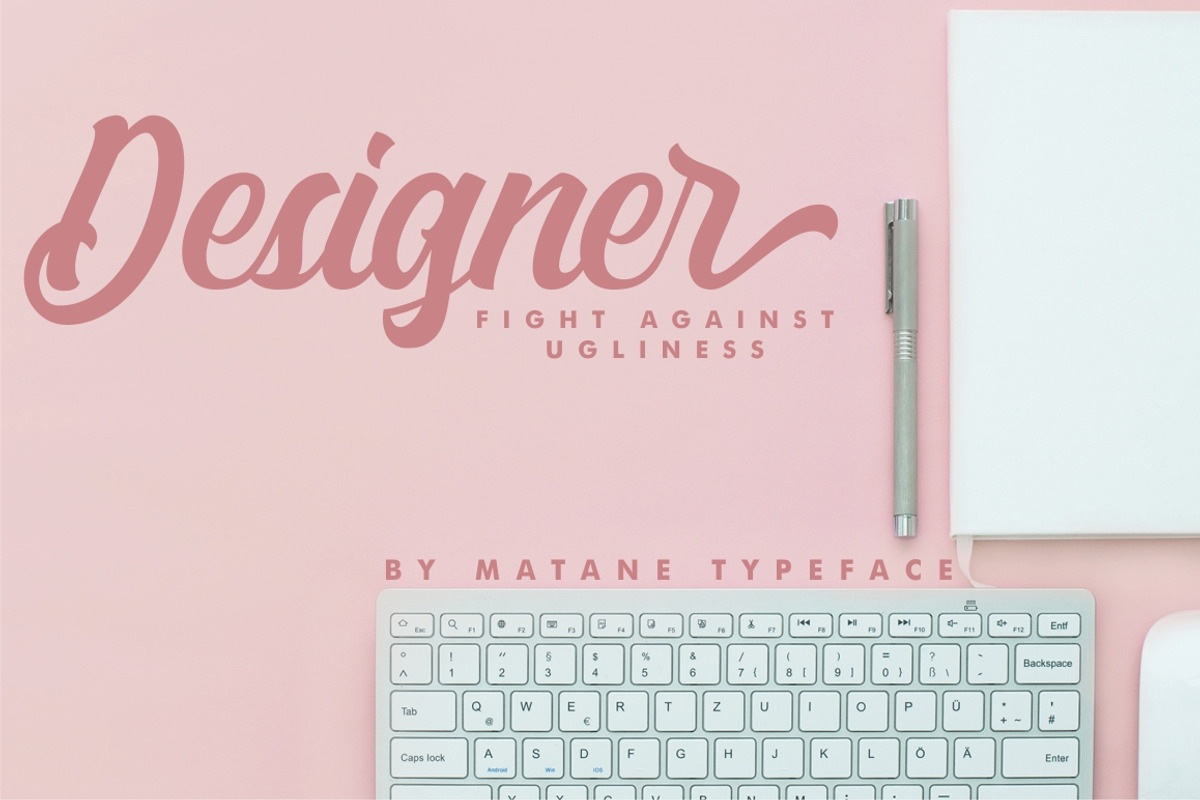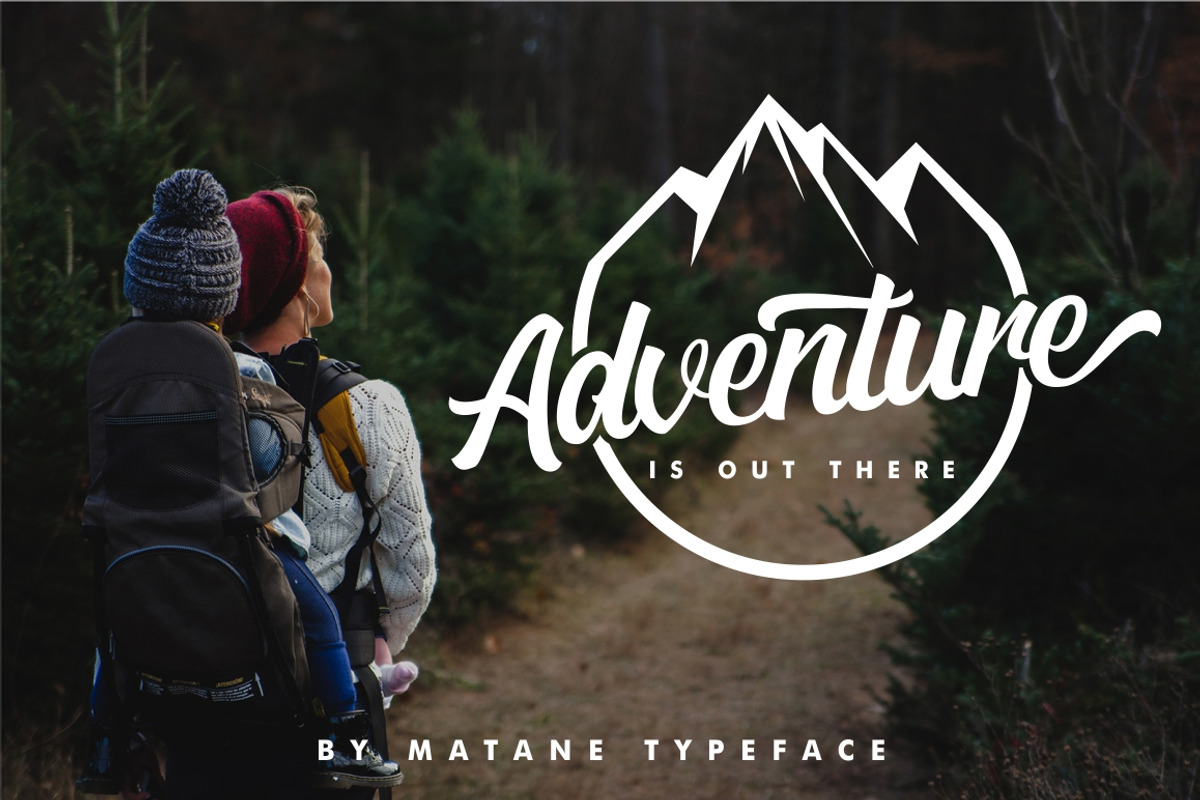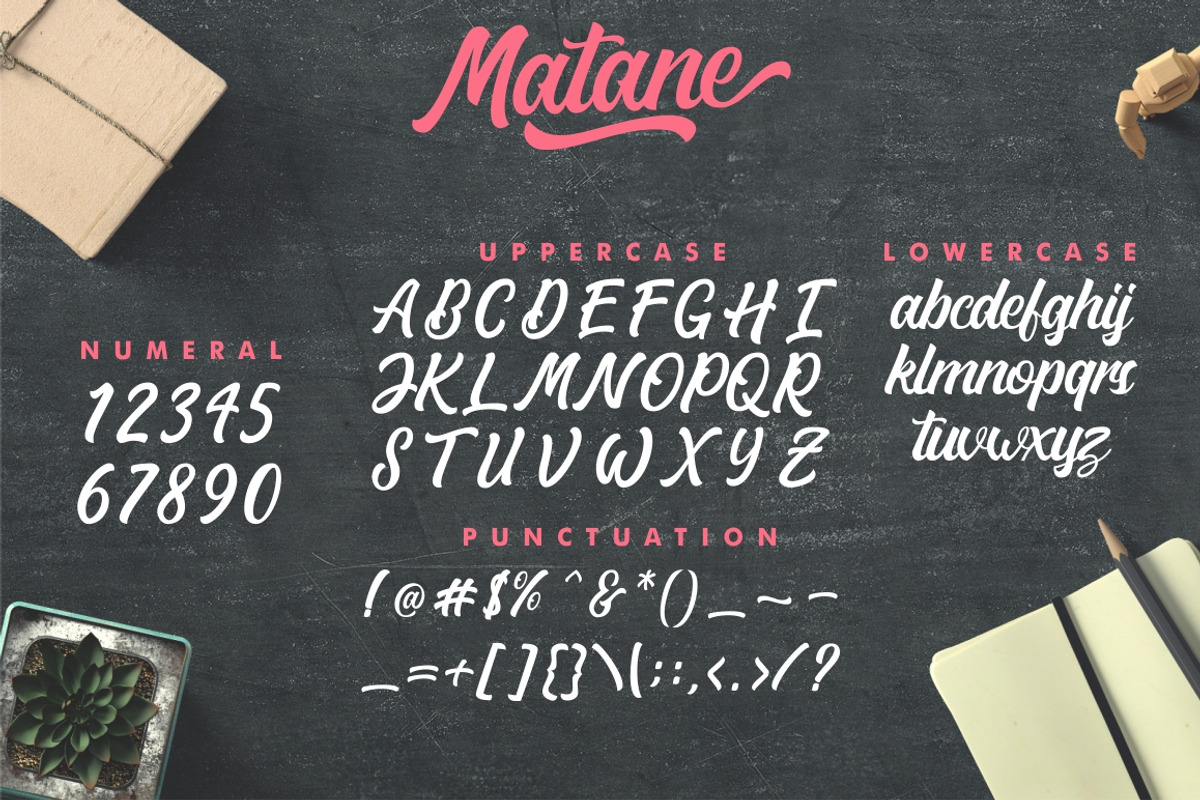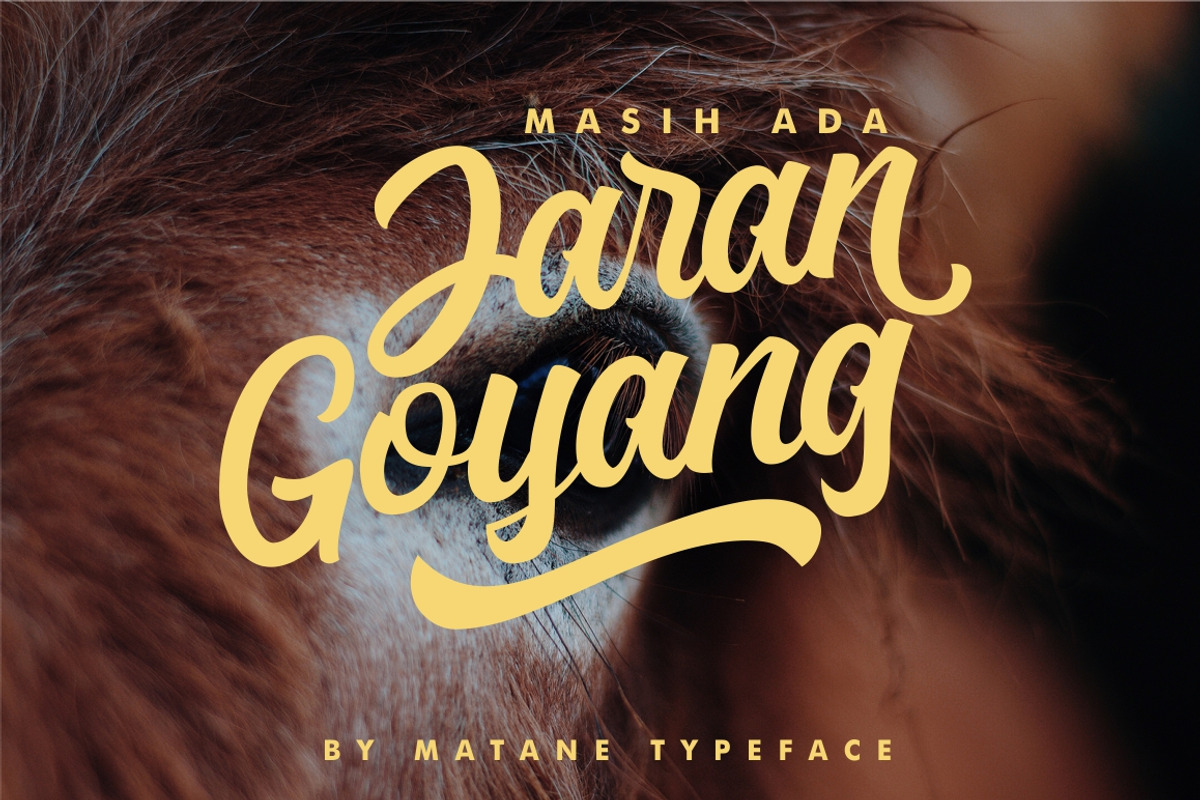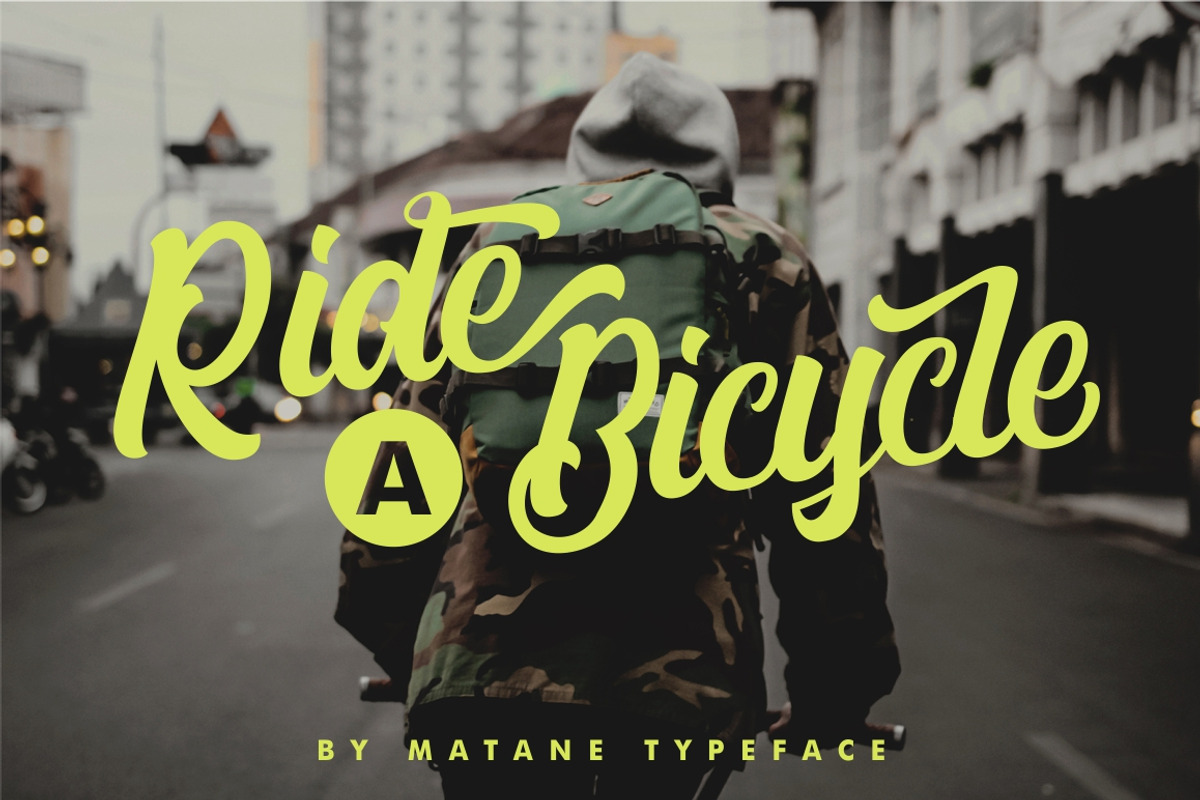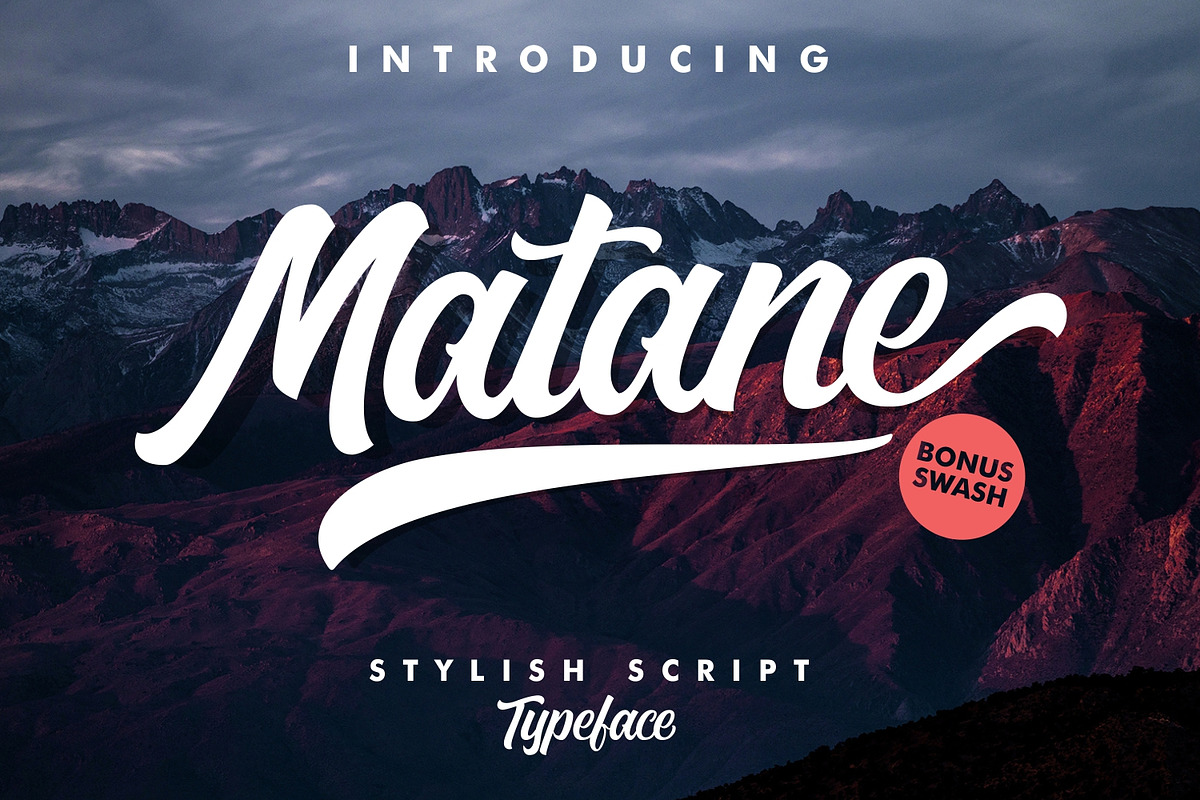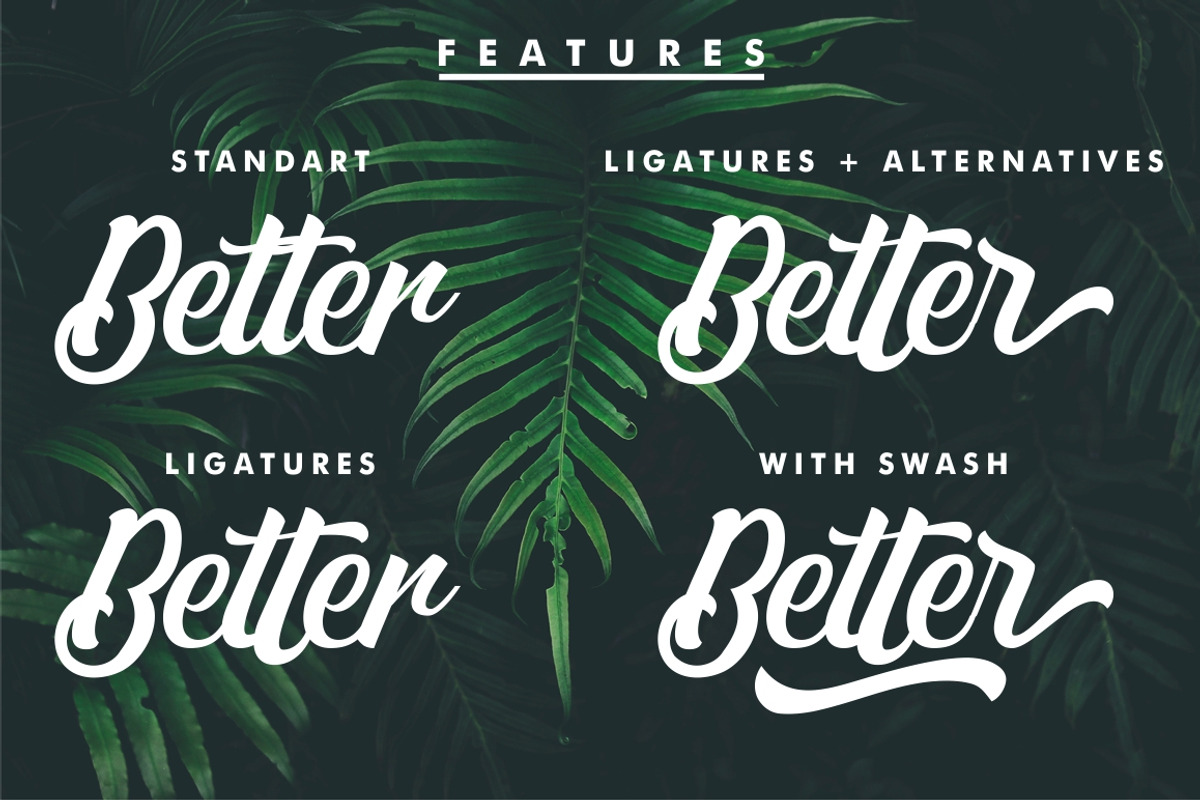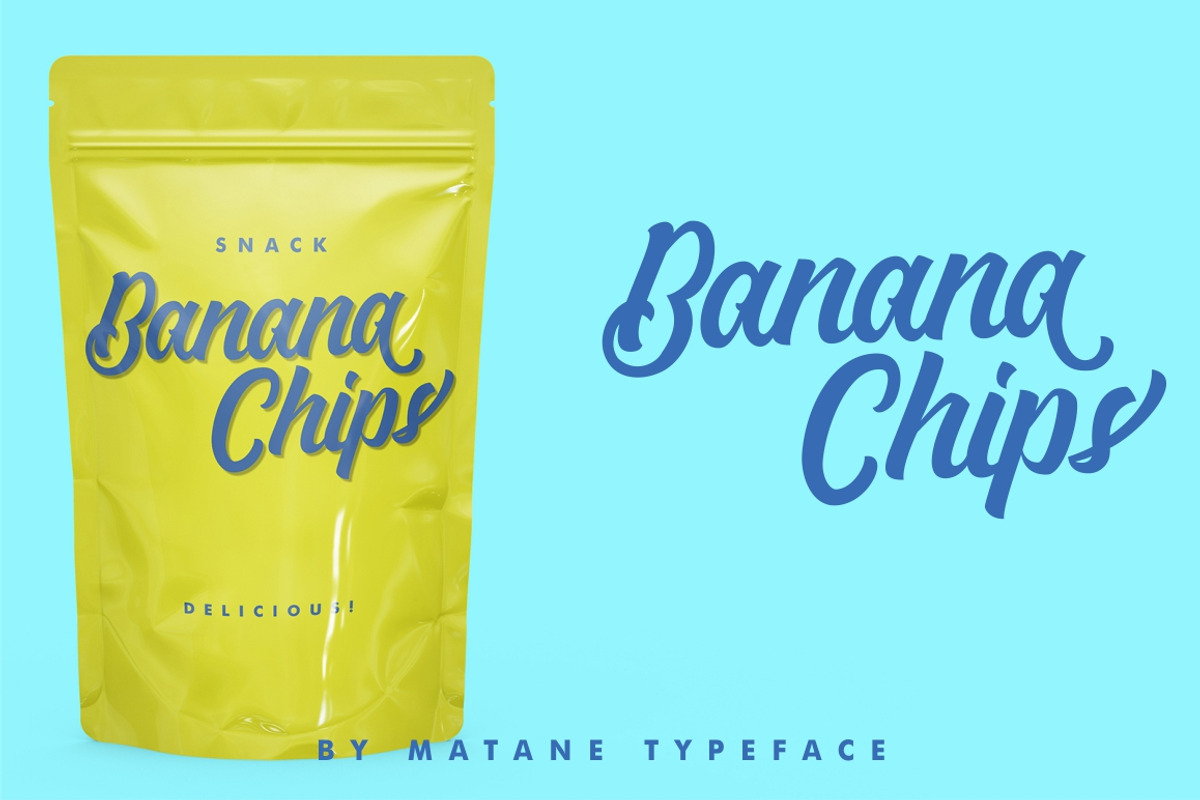
Matane Typeface + Swash
Hello We introduce our first product called Matane Typeface.
The Matane Typeface is a Stylish hand painting script. We give you bonus swash design to make the Matane Typeface look so awesome.It has dinamic and beautiful opentype features.
Matane Typeface is great for Apparel Brand, Logo Design, Lettering, Product Packaging, Printed Quotes, Invitations, Image overlays, Greeting cards, Text Headers, Book Cover, Painting design style, and other design project. Mix and match the alternate characters to add an attractive message to your design.